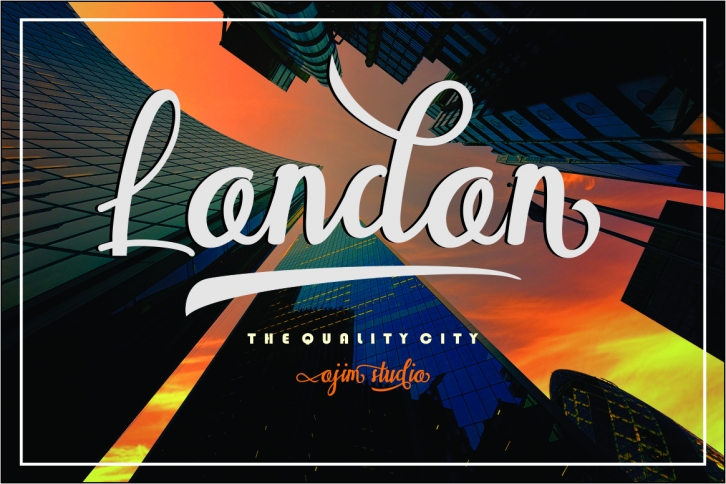
London SCRIPT is a beautiful font that was designed by ojim studio. It's a great choice for designers and creatives who need such a font. It was released on December 14, 2018 and the file size is 9.71 MB. London SCRIPT may give a more youthful, expressive and casual look to your project. It is a very beautiful, refined, elegant, and high-quality font.